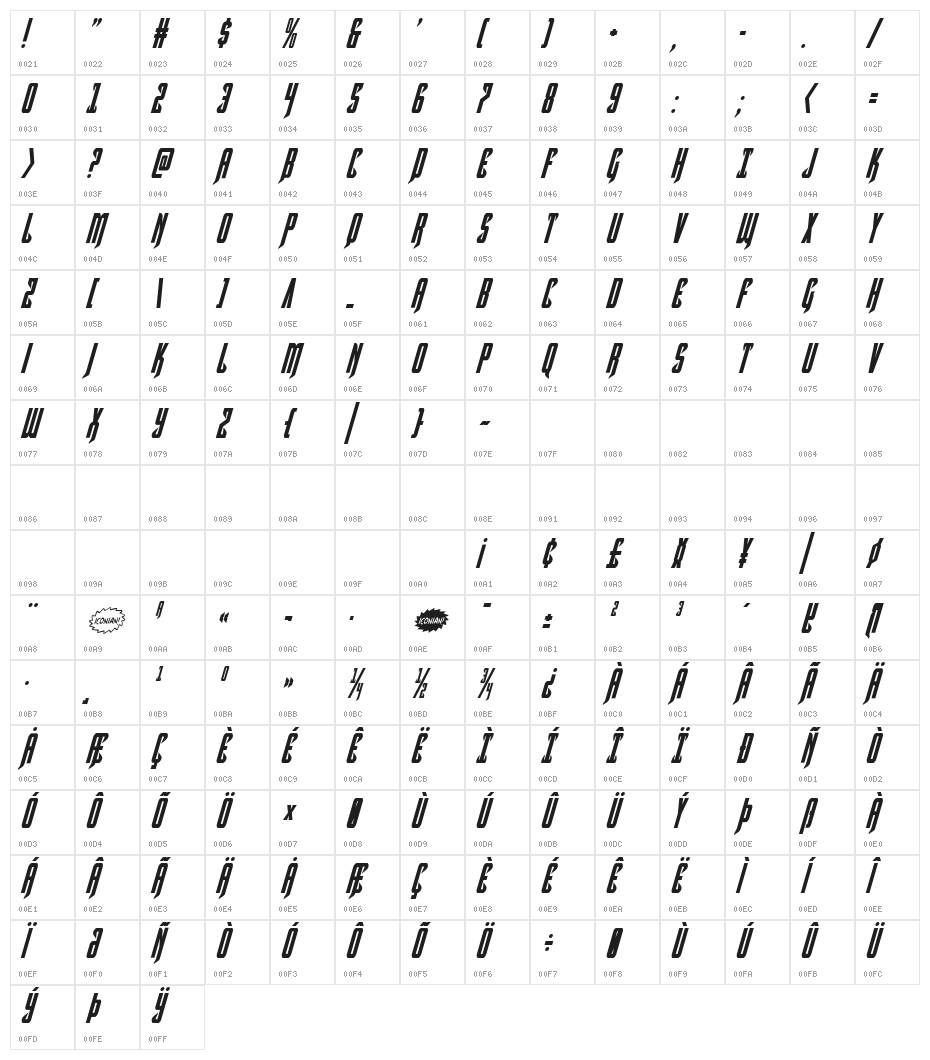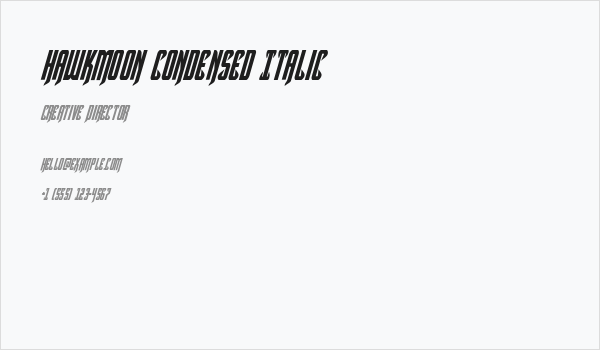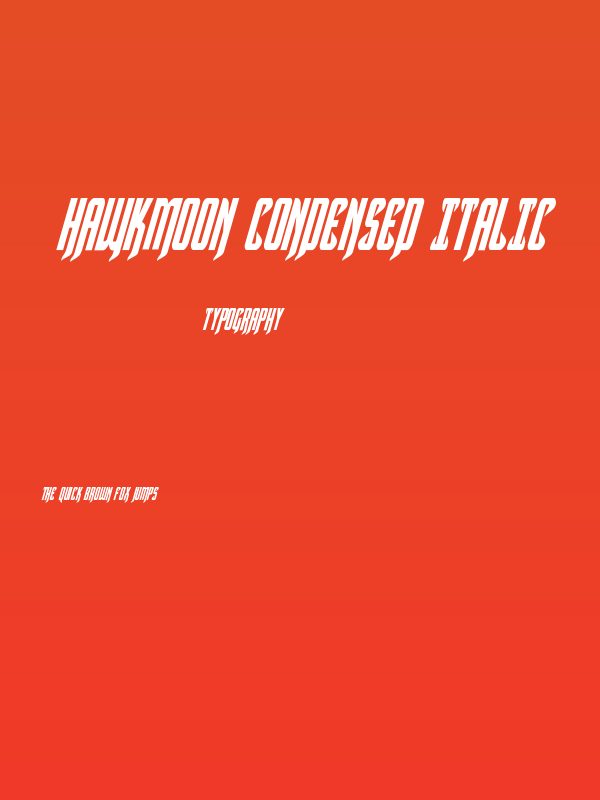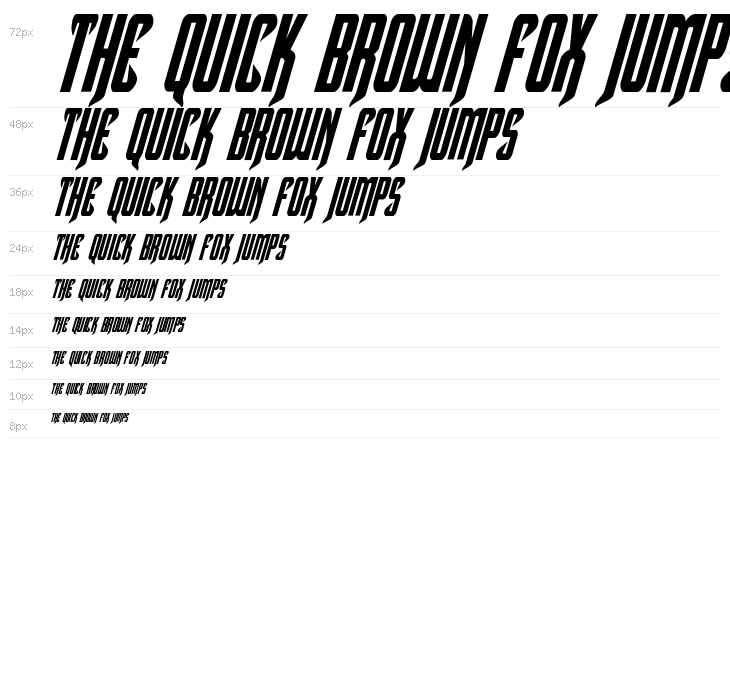
Hawkmoon Condensed Italic Font
Hawkmoon Condensed Italic Description
This font features a bold and dynamic style with a strong italic slant, giving it a sense of motion and energy. The characters are condensed, which enhances its compact and impactful appearance. The sharp, angular edges and uniform stroke width contribute to its modern and aggressive look. This font is ideal for making a statement, with its high contrast and distinctive design that captures attention. The uppercase and lowercase letters maintain consistency in style, while the numerals and special characters complement the overall aesthetic.
| Proposed Projects | Ideal for sports branding, action movie posters, dynamic logos, and edgy magazine covers. |